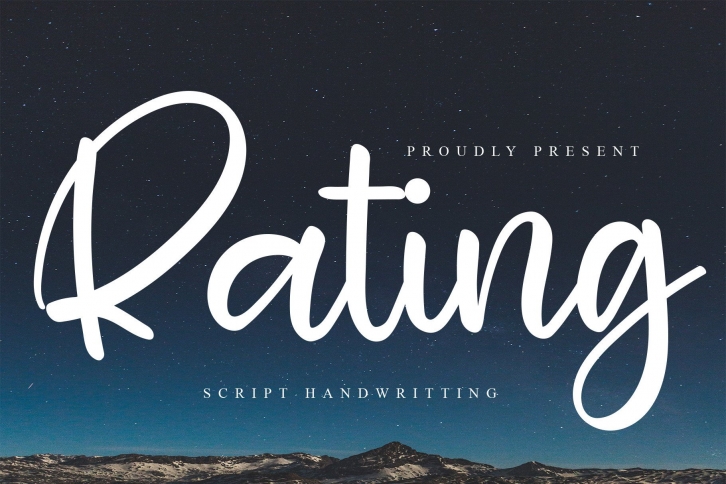
Rating is a playful and stylish handwritten font with a youthful spirit. It is suitable for professional-looking projects such as branding, labels, websites, and business cards, as well as casual designs like packaging, posters, flyers, quotes, social media posts, invitations, special occasions cards, and many more.